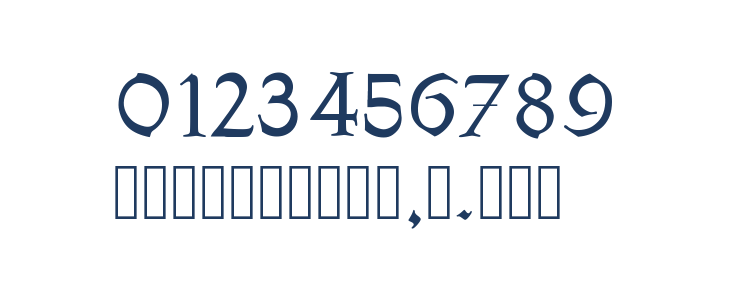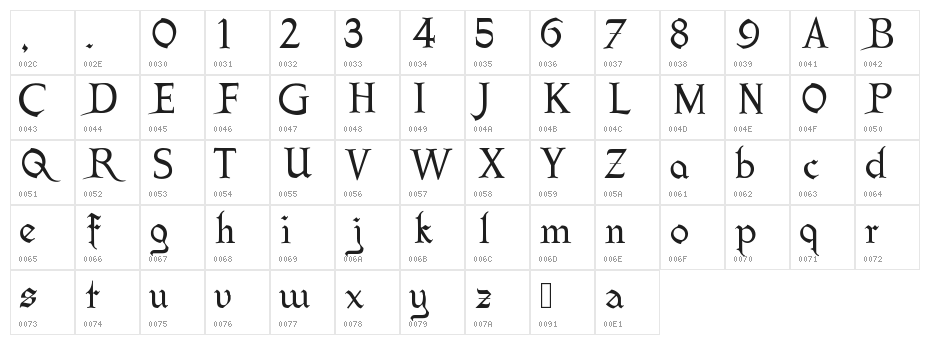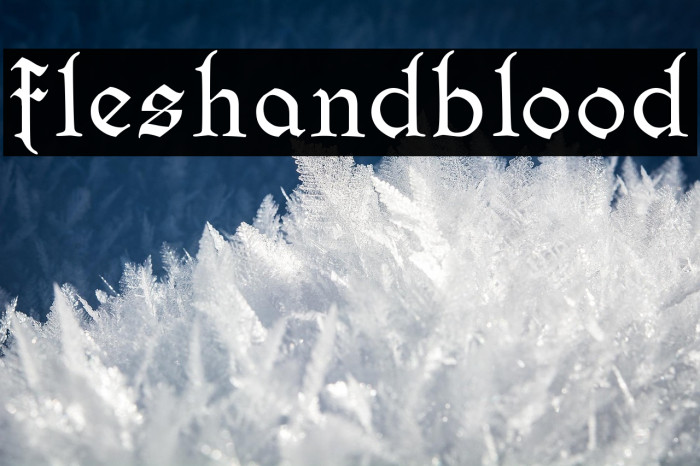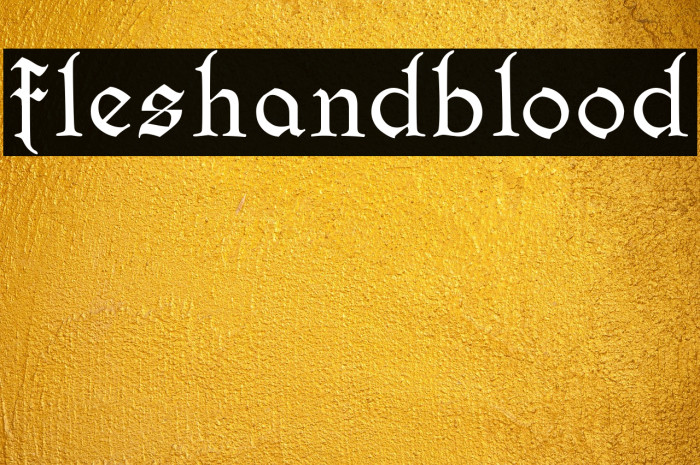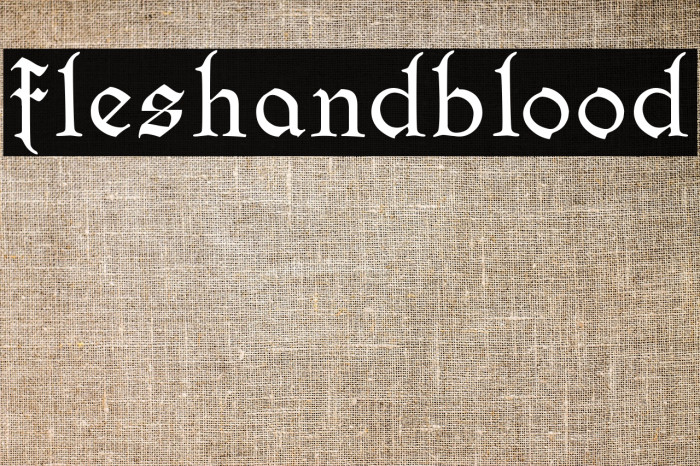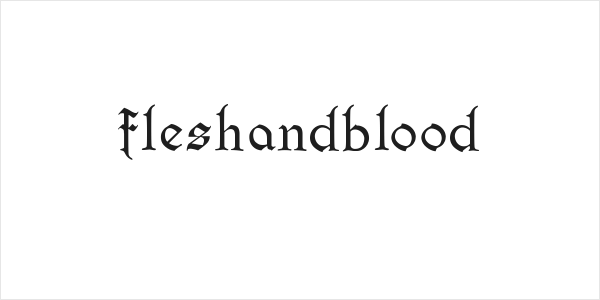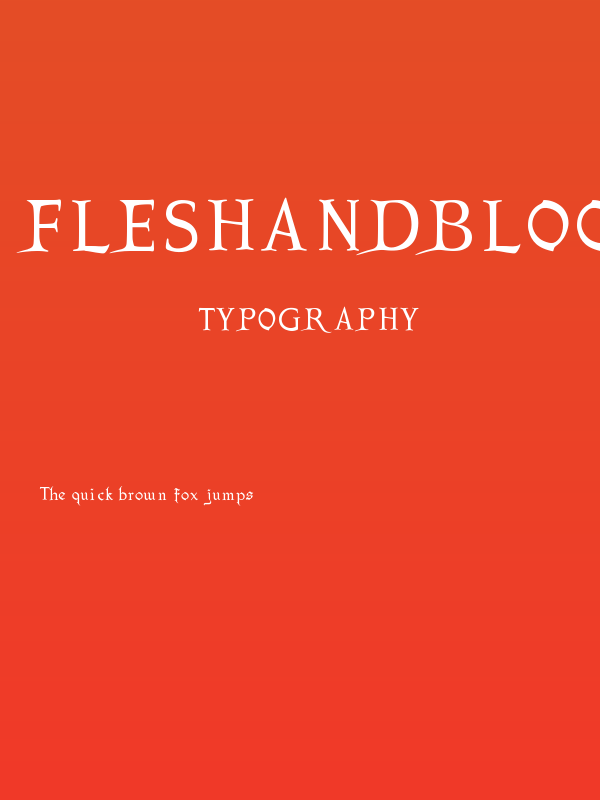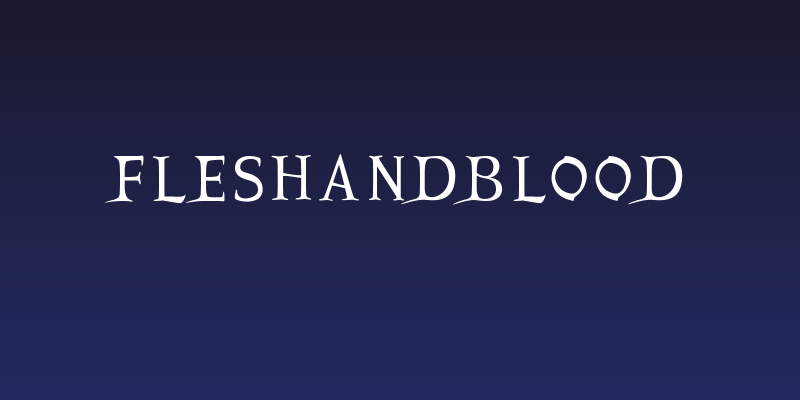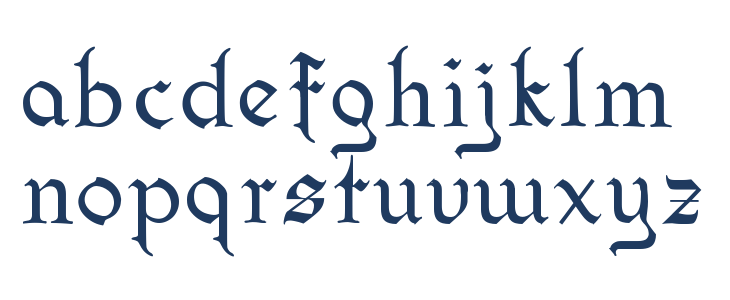
fleshandblood Font
fleshandblood Description
This font features a distinctive and dramatic style, reminiscent of medieval or gothic script. The characters are characterized by sharp, angular serifs and a slight curvature that adds a sense of elegance and mystery. The uppercase letters are bold and commanding, while the lowercase letters maintain a consistent style with slightly more intricate detailing. The numerals are clear and follow the same stylistic cues, ensuring readability while maintaining the overall aesthetic. The special characters are designed to complement the font's unique style, making it suitable for thematic and decorative uses.
| Use Case | Headlines, Logos, Decorative text |
| Proposed Projects | Ideal for fantasy-themed projects, book covers, posters, and branding that requires a medieval or mysterious aesthetic. |